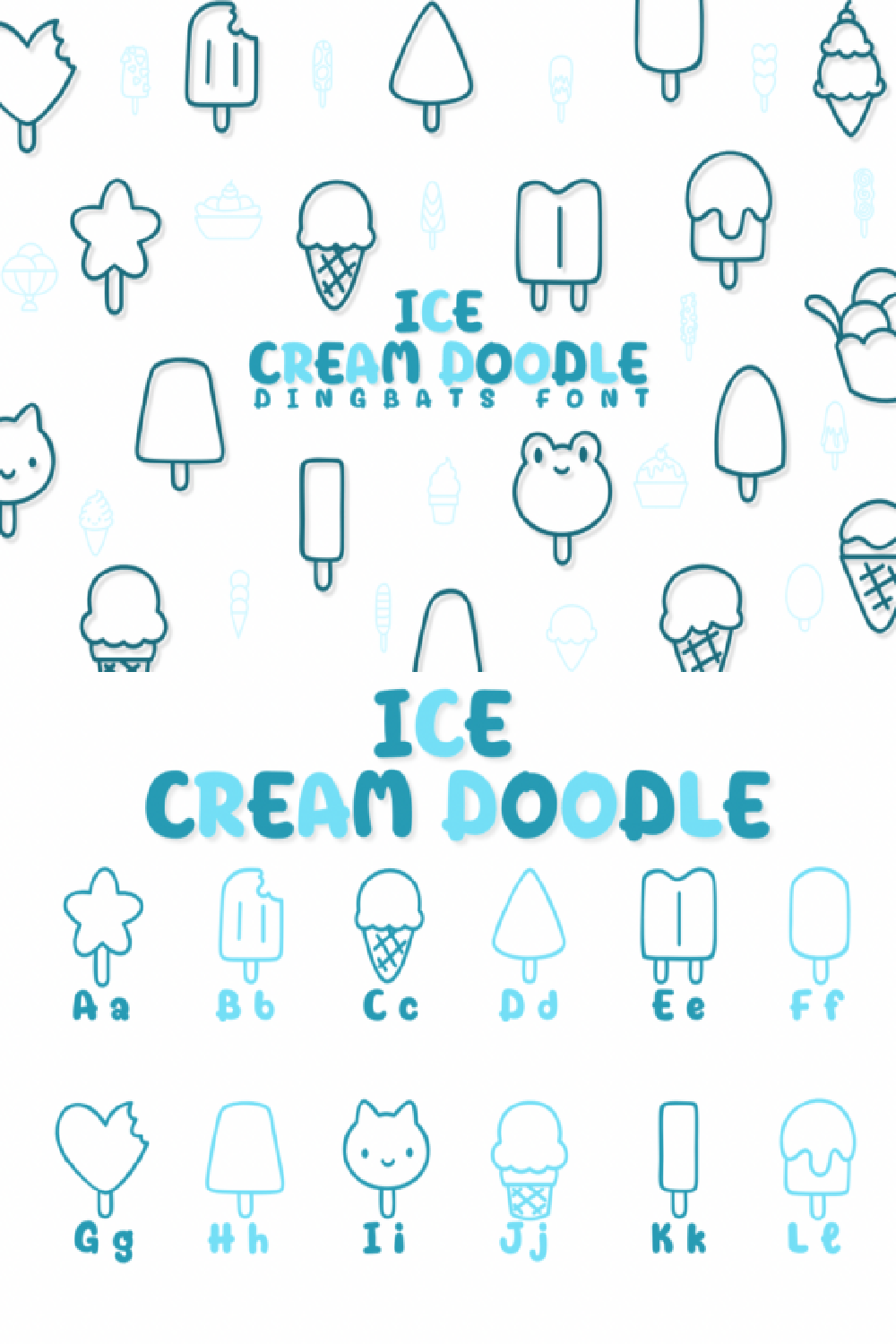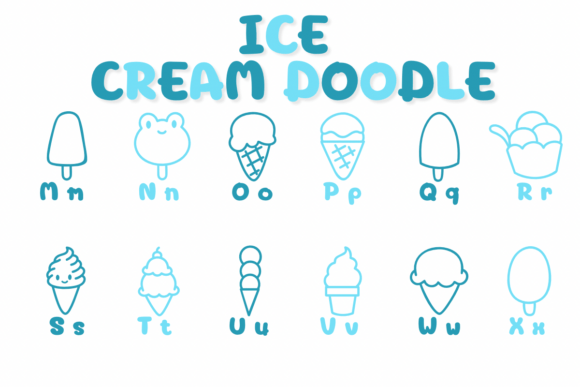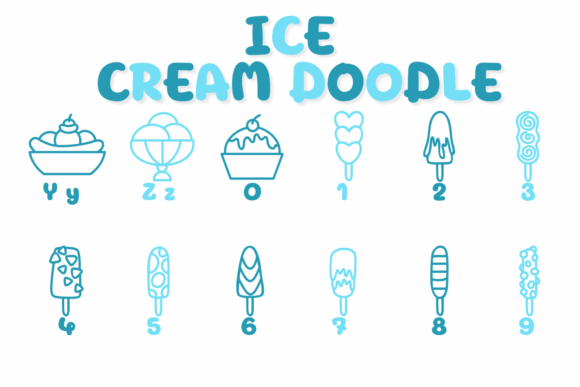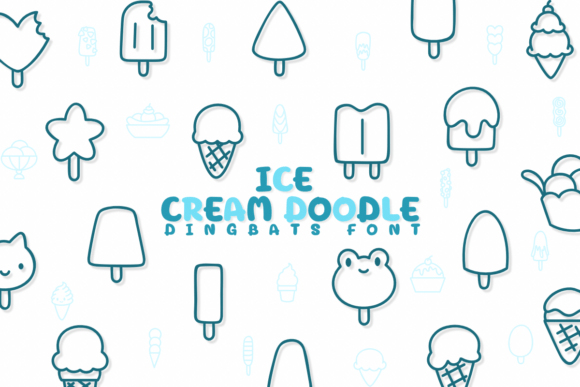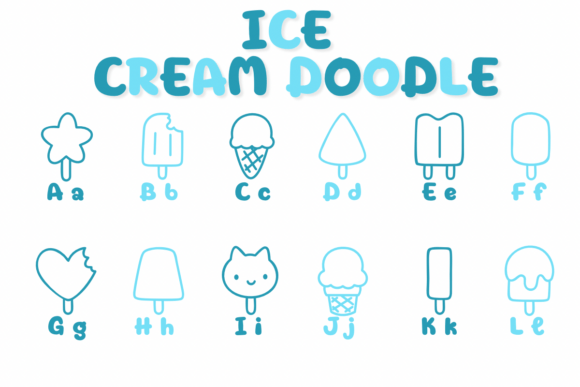
Ice Cream Doodle Font
About the Ice Cream Doodle Font
We are excited to introduce Ice Cream Doodle Font, a must-have typeface for any serious designer. Ice Cream Doodle is a dingbats font with sweet, icy theme. This font can enhance your creative projects, such as wedding invitations, DIY, crafts, decorations, logos, and many other creative ideas.
Ice Cream Doodle’s playful, hand-drawn aesthetic makes it ideal for projects needing a lighthearted and friendly touch. It excels in short headlines, logos for ice cream parlors or children’s brands, and packaging design for sweet treats. Use it sparingly in social media graphics or short promotional materials to add a touch of whimsy.
However, its informal nature makes it unsuitable for large blocks of text or body copy. Avoid using it in UI design or situations requiring high readability.
Pairing Ice Cream Doodle with a clean sans-serif like Open Sans for body text creates a balanced contrast. For a more sophisticated look, consider pairing it with a delicate script font for secondary elements, or a geometric sans-serif for a modern twist.
Ice Cream Doodle Font Usage Examples
Ice Cream Doodle Font Example